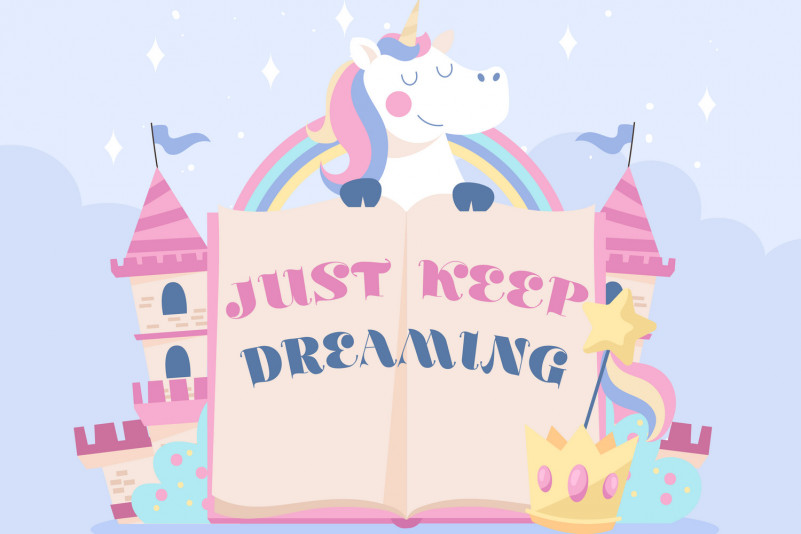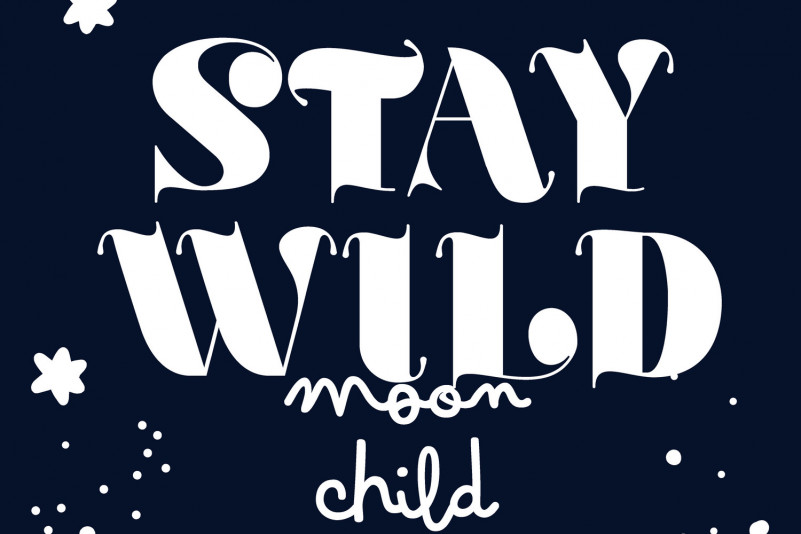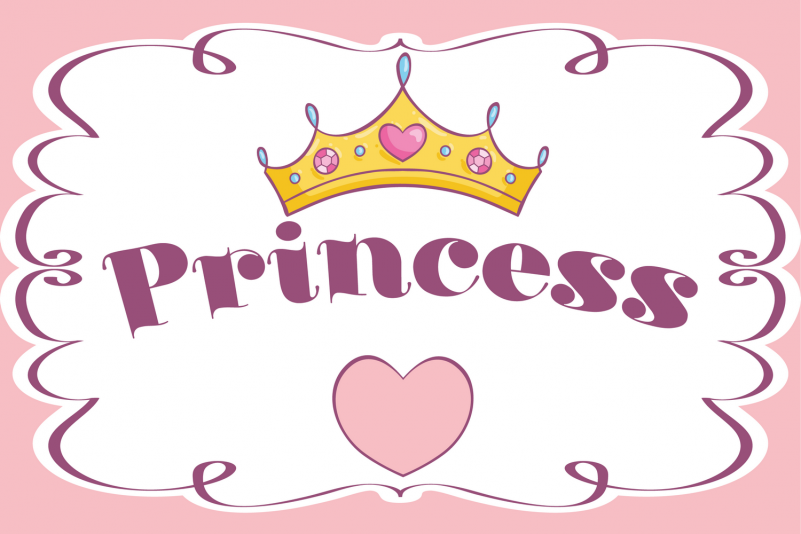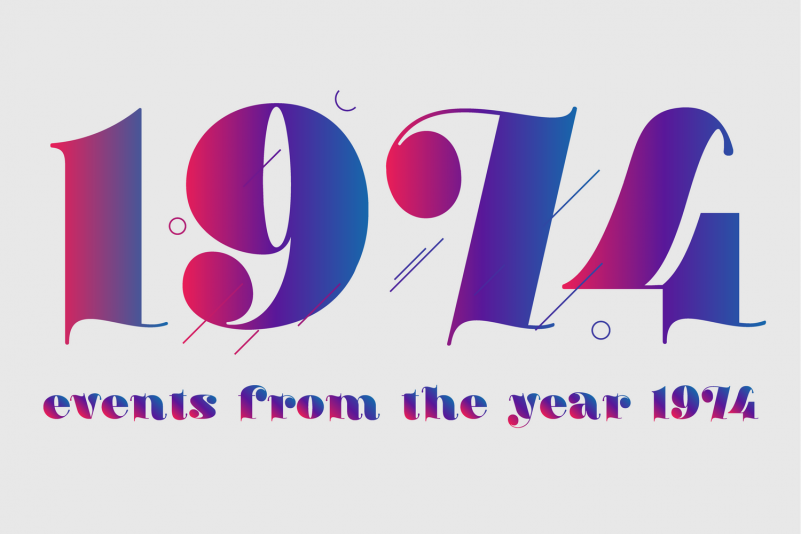
The Shouting Font
A bold and fun display font. Inspired by the classic 60’s design styles, a decade of bold and swashes styles. with high contrast letterforms. The font really bring a good statement for your logo design and can be the image of a design. The Shouting Font is very unique and easy to apply to any media; t-shirts, posters, sign boards, and social media needs.